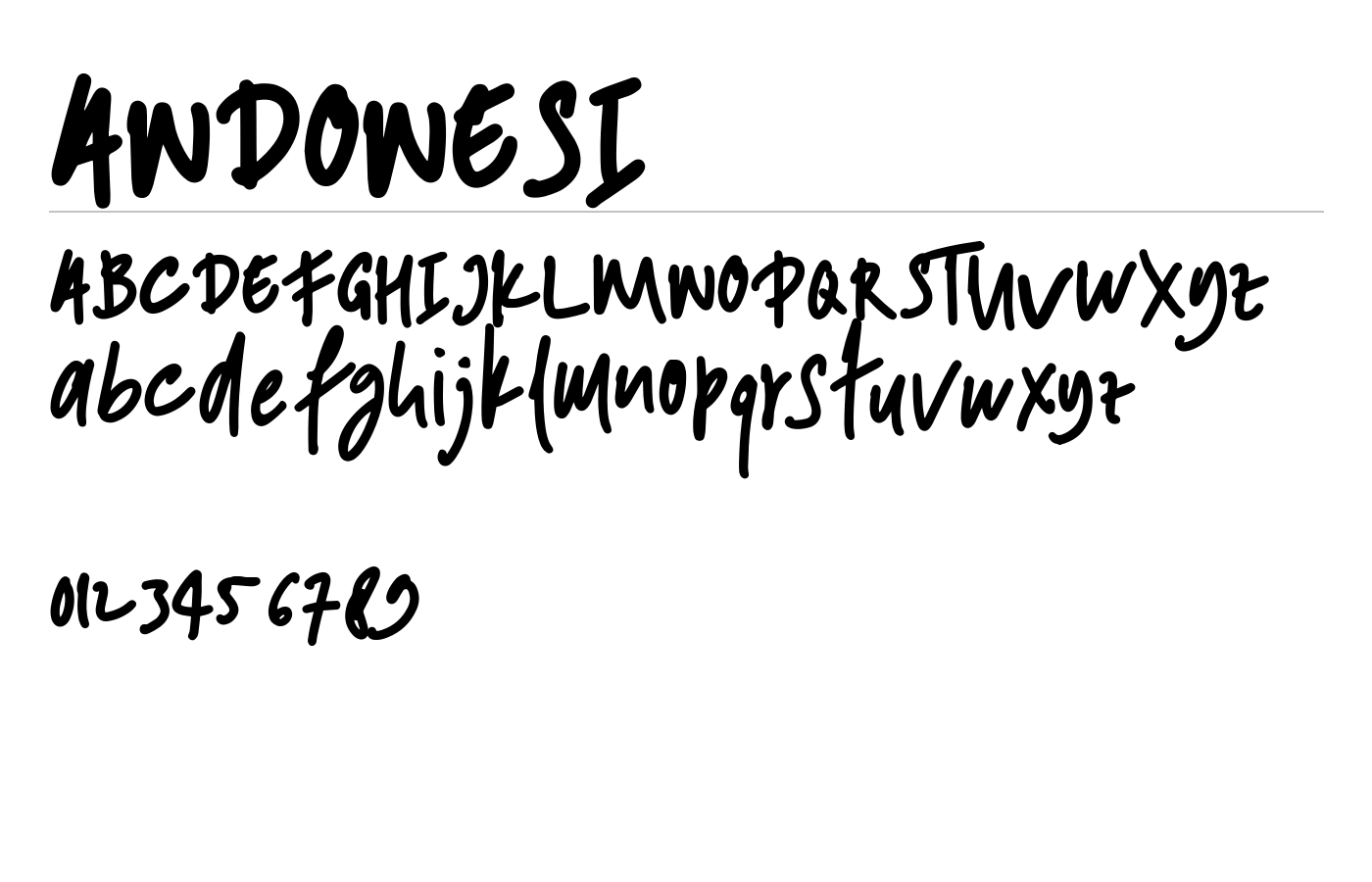
ANDONESI is a bold, handwritten script font with a lively and casual personality. Its irregular, brush-like strokes and high x-height create an energetic and playful feel, making it ideal for informal designs, creative branding, and eye-catching headlines. This font works well in contexts where a dynamic, personal touch is desired, such as posters, social media graphics, and lifestyle branding.
ANDONESI Font
About ANDONESI Font